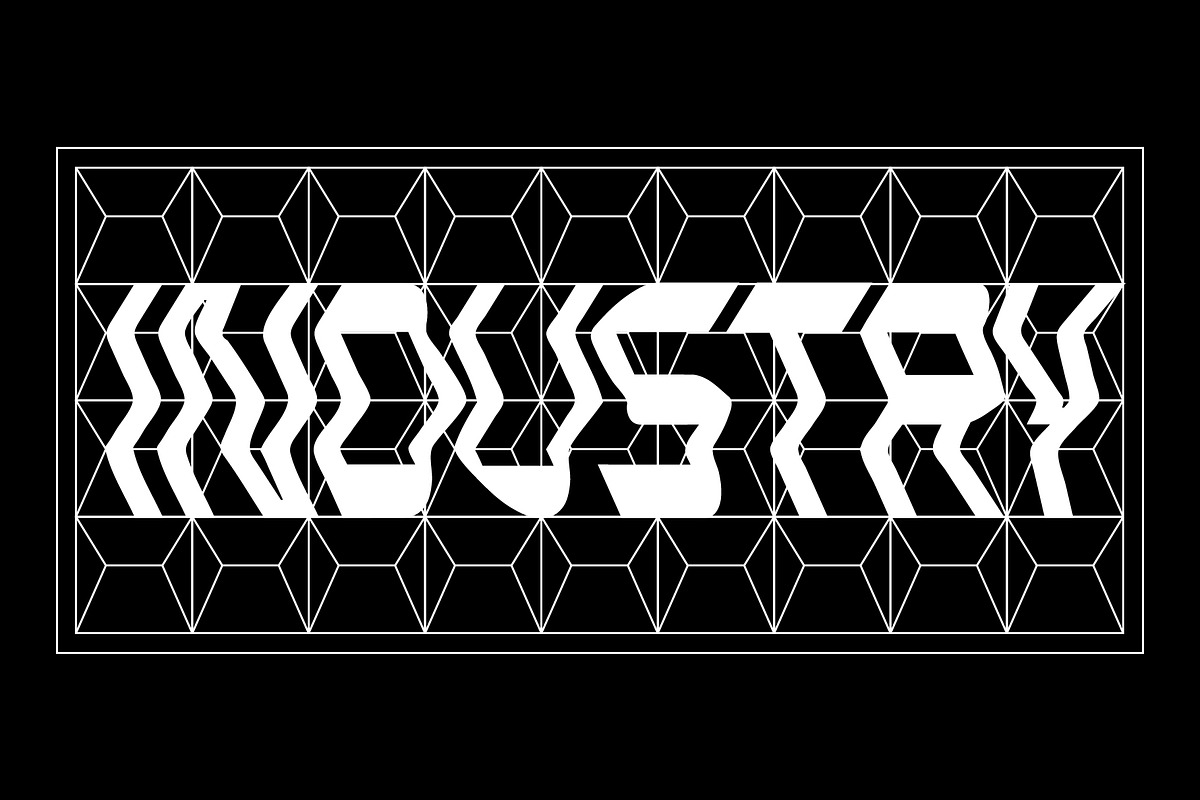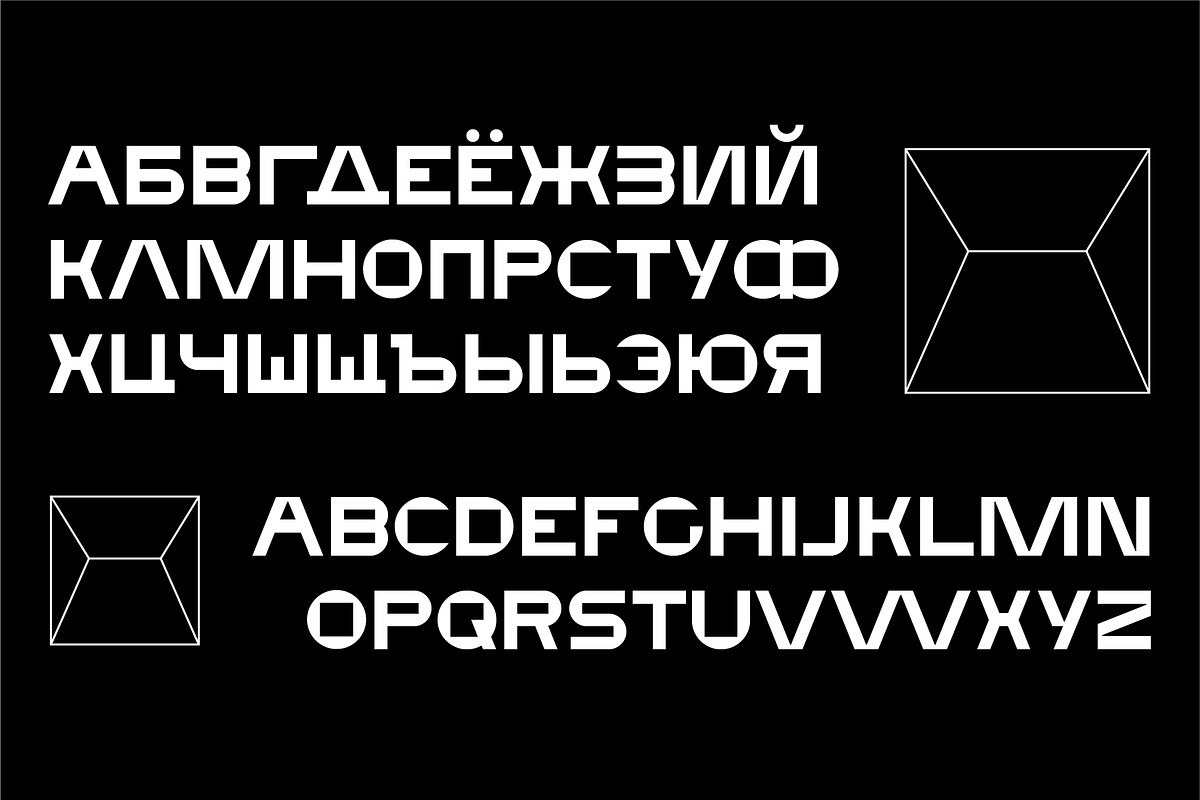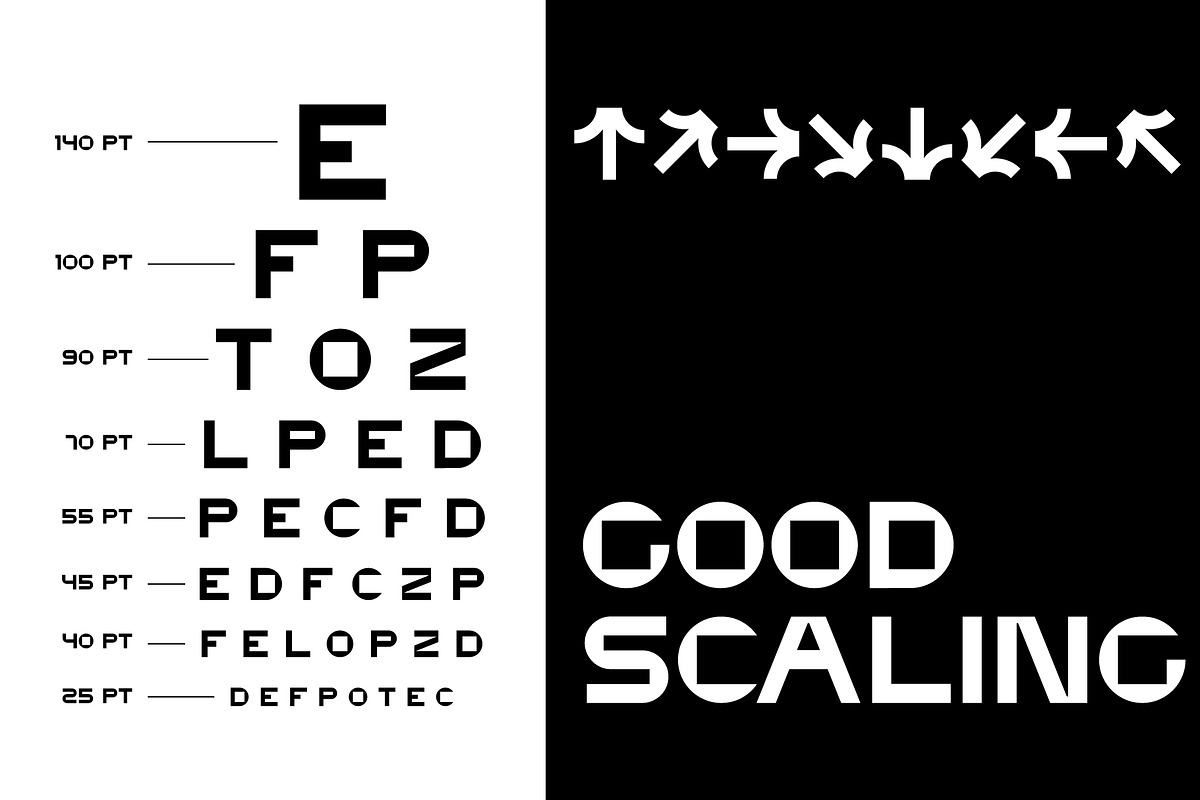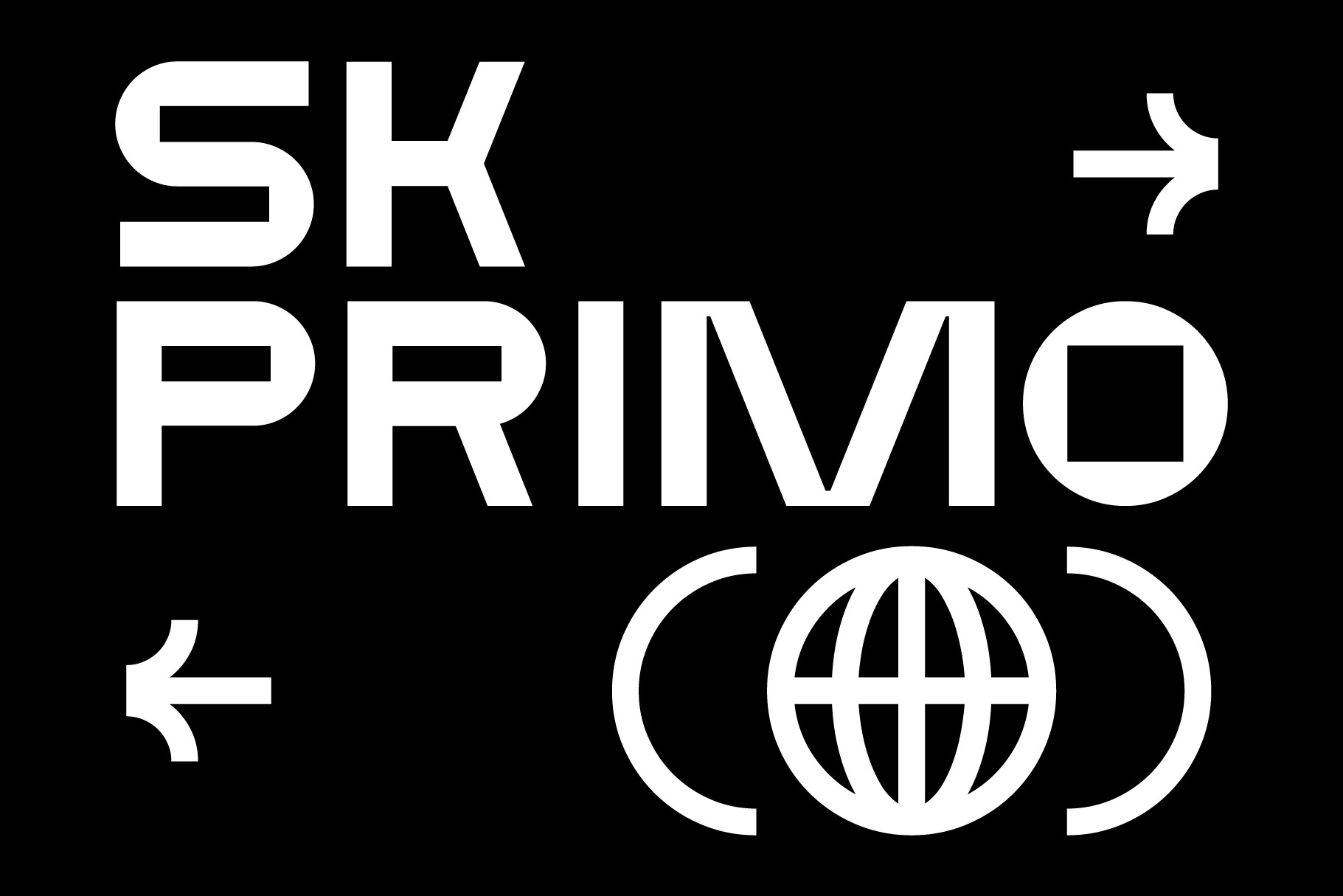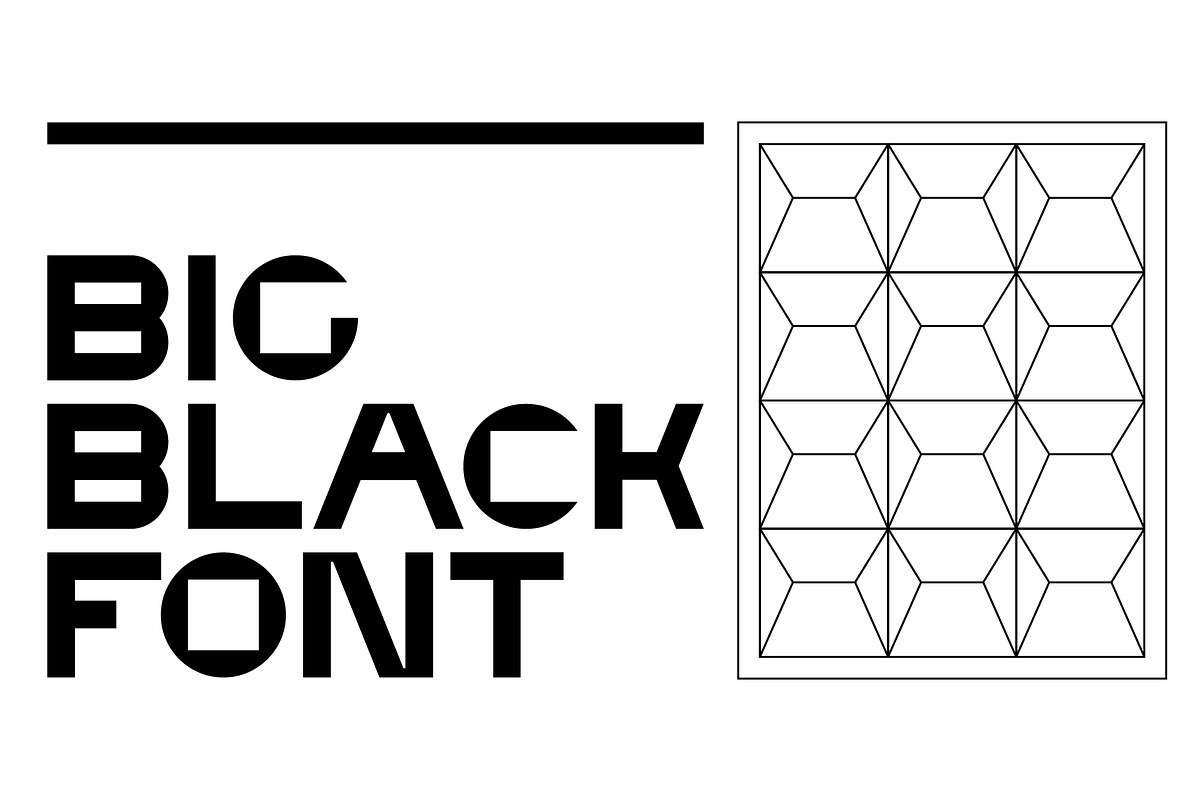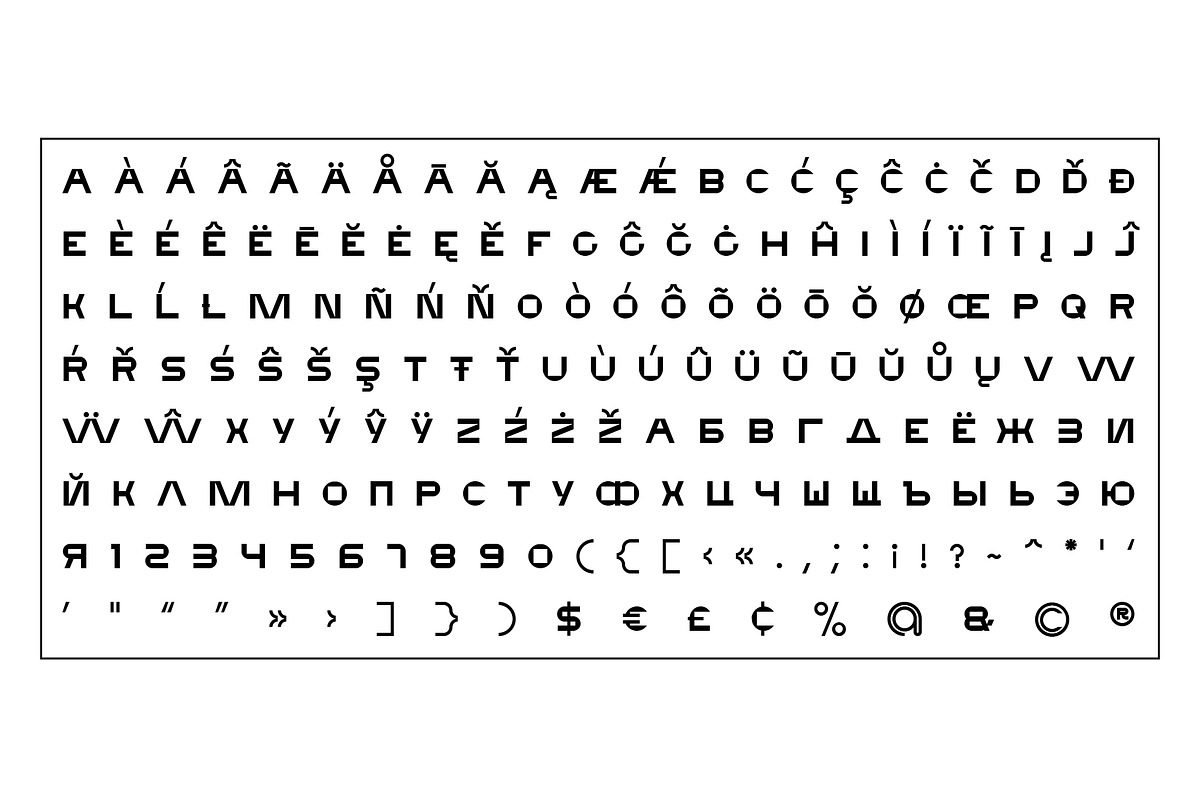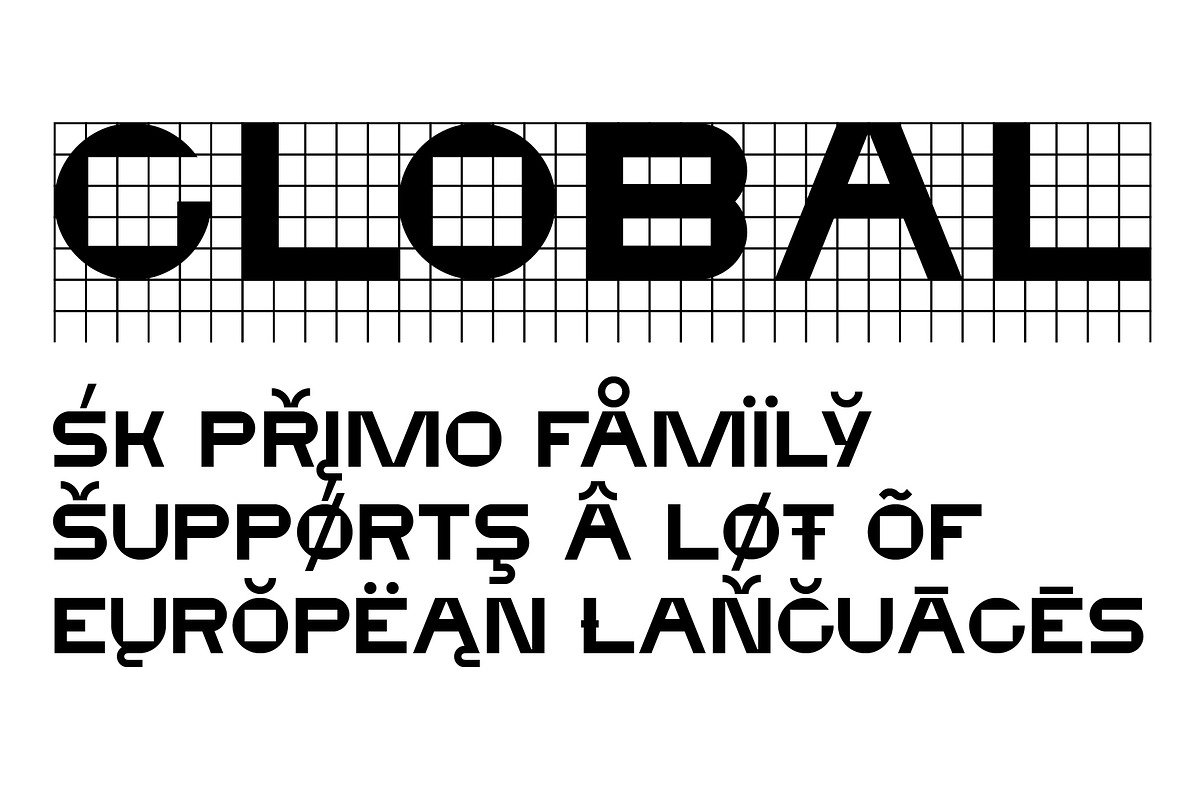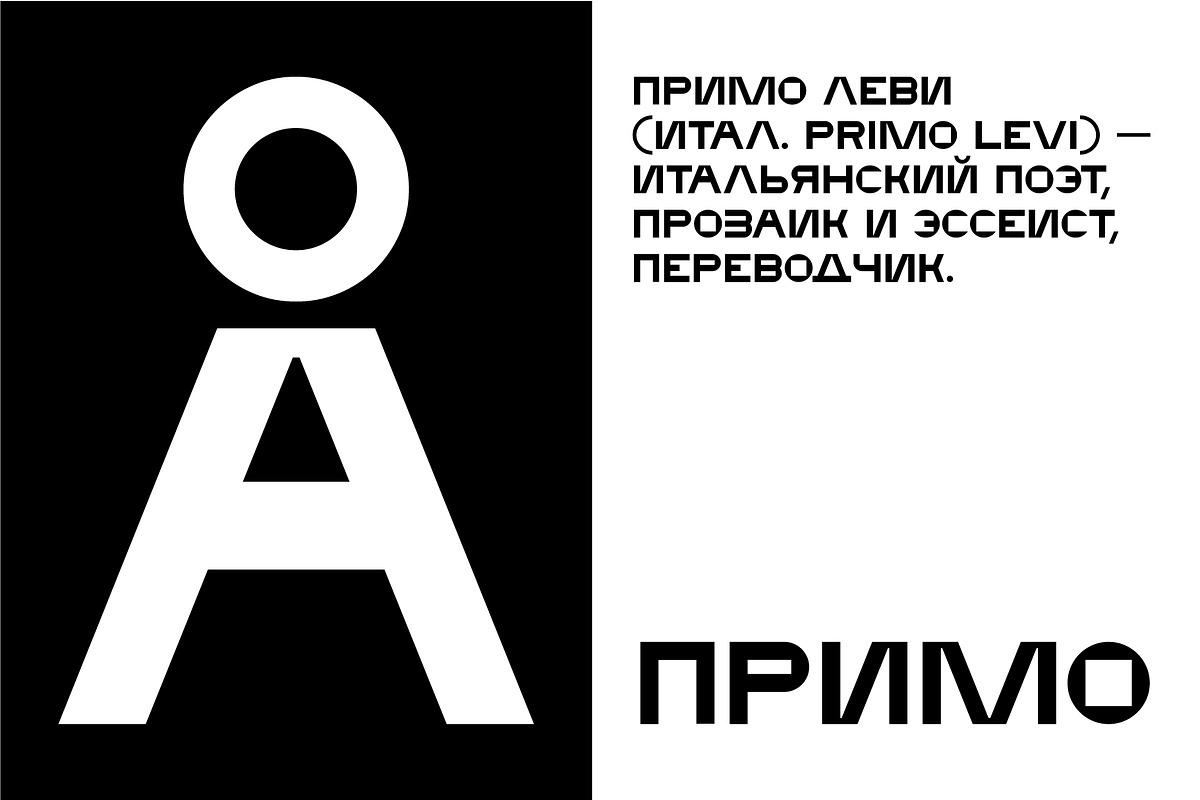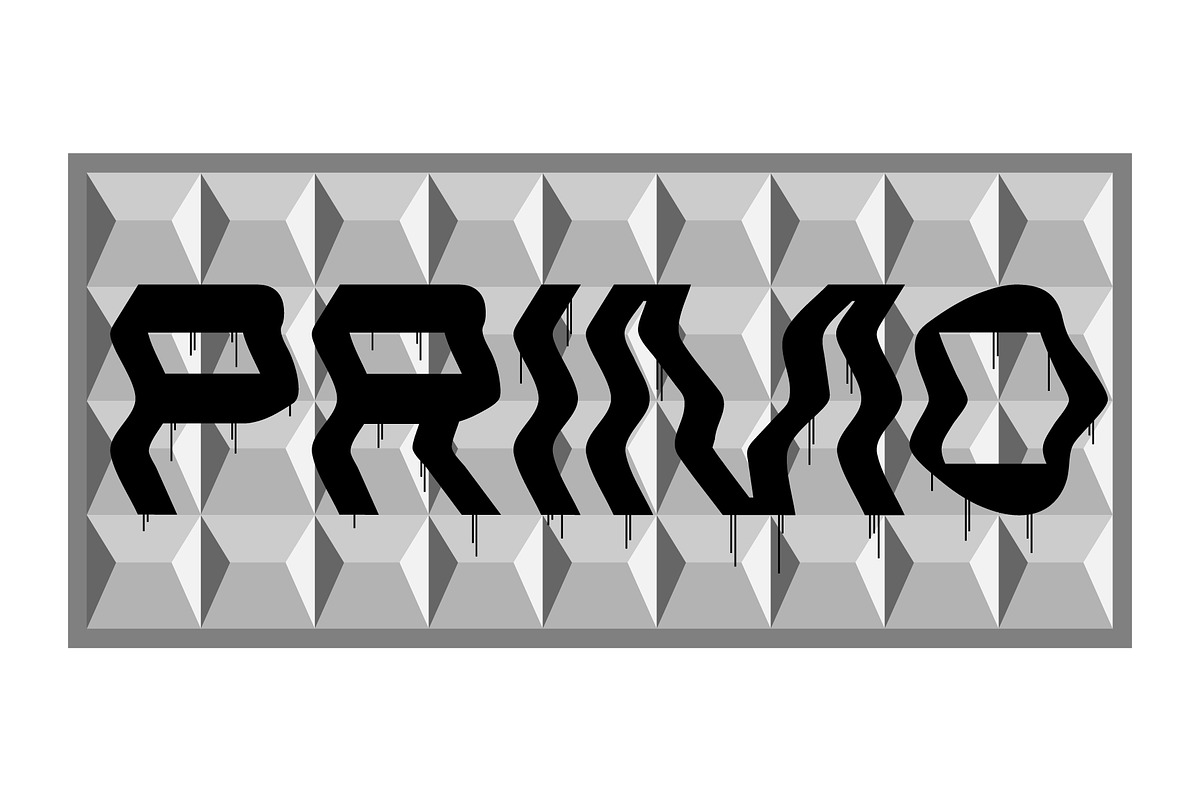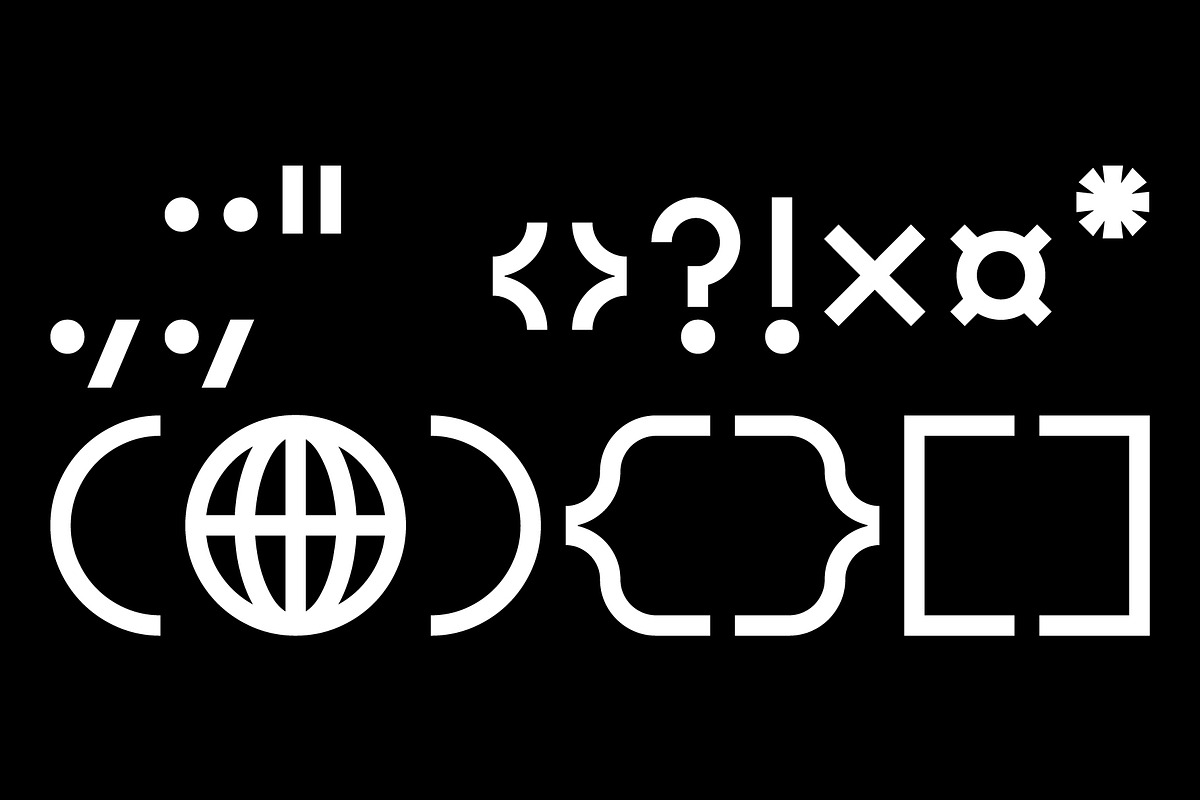
SK Primo — Modern Geometric Font
SK Primo is a geometrical neo-grotesque constructed on the contrast of forms. In typeface glyphs, circles and rectangles fit together. This gives the typeface a unique appearance, which provides space for fantasy when applying the typeface in work. Another distinguishing feature of the SK Primo typeface is a visual difference between letters and symbols (punctuation marks, diacritics, etc.), this gives the text a unique visual rhythm. SK Primo is multilingual and supports many languages, including basic and extended Latin, Cyrillic, and many others. It's great for posters and titles.